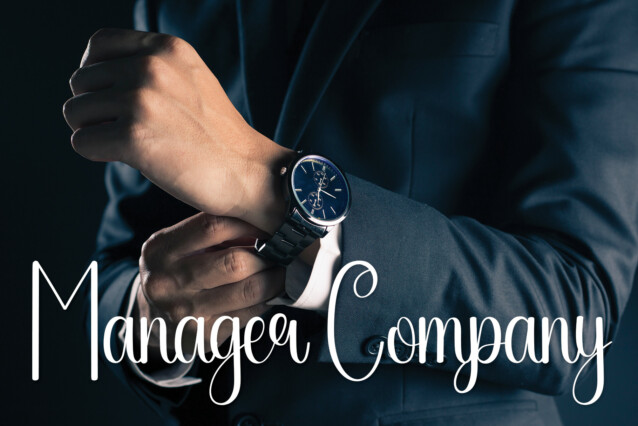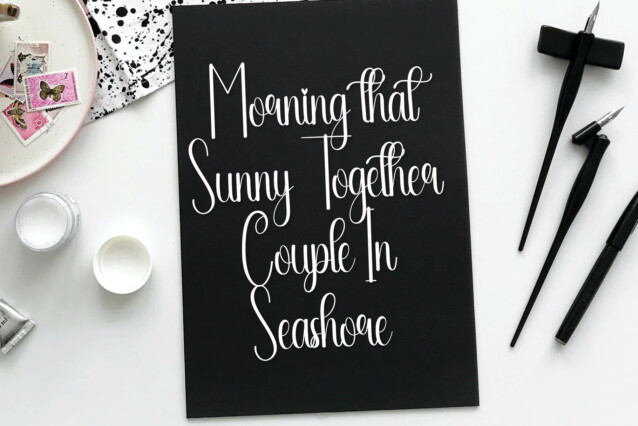
Chill Script Font
Chill Script Font is a unique and elegant handwritten font. It looks beautiful on a variety of designs requiring a personalized style, such as wedding invitations, thank you cards, greeting cards, logos, and so on.